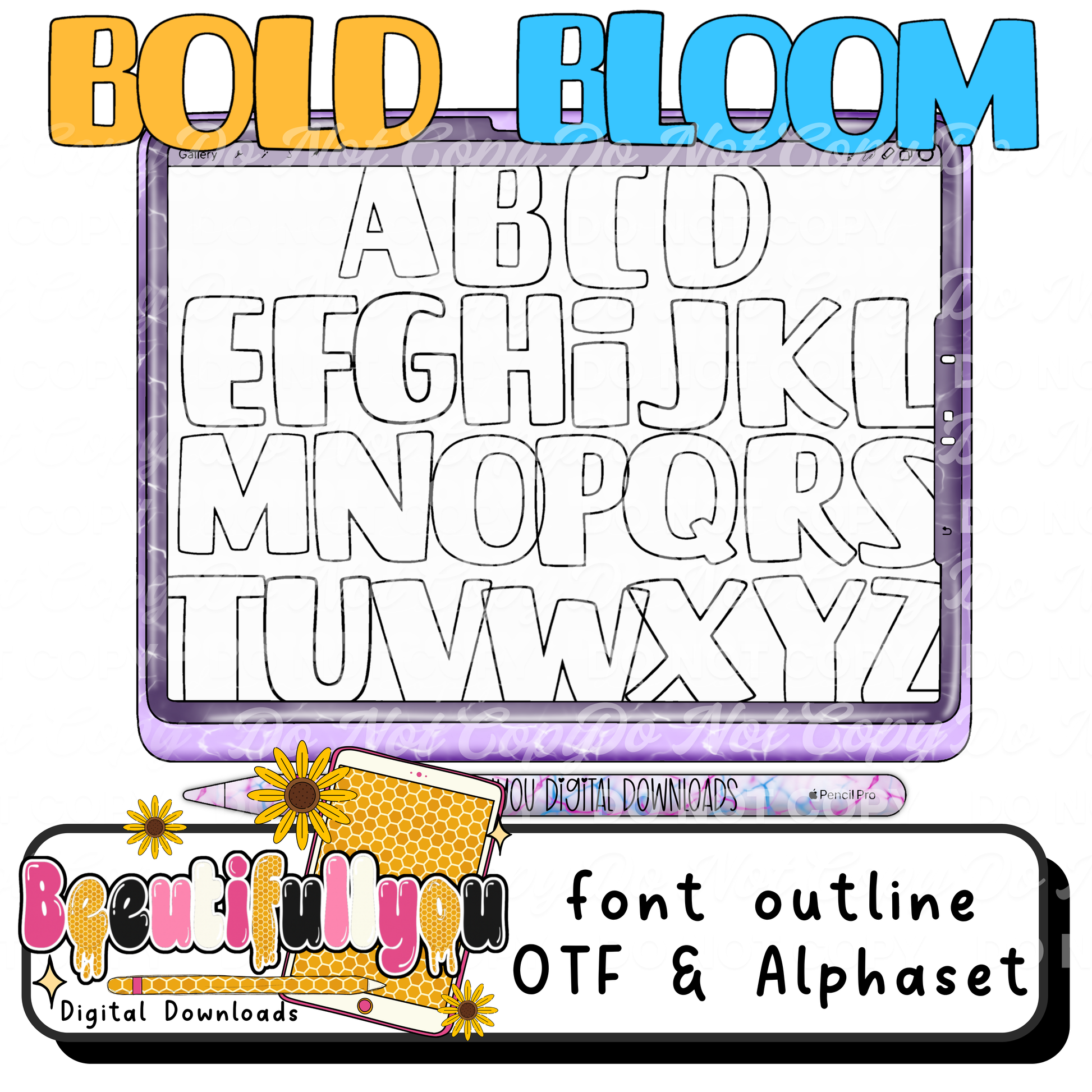
šØāØ Turn YOUR creativity into a SELLABLE font!
This bold bubble font outline set is designed for creators who want to build their own custom fonts and sell them š°
Simply add your own colors, patterns, textures, or effects ā and transform these outlines into a completely unique alphabet ready for your shop!
ā Full Alphabet (AāZ)
ā Clean, bold bubble-style outlines
ā Ready-to-customize letter structure
ā High-resolution, crisp edges
šØ What You Can Do With It
šØ Add patterns, glitter, textures, or fills
šØ Create your own custom alphabet styles
šØ Turn into a sellable font or clipart set
šØ Use in your own finished designs
ā Endless customization options